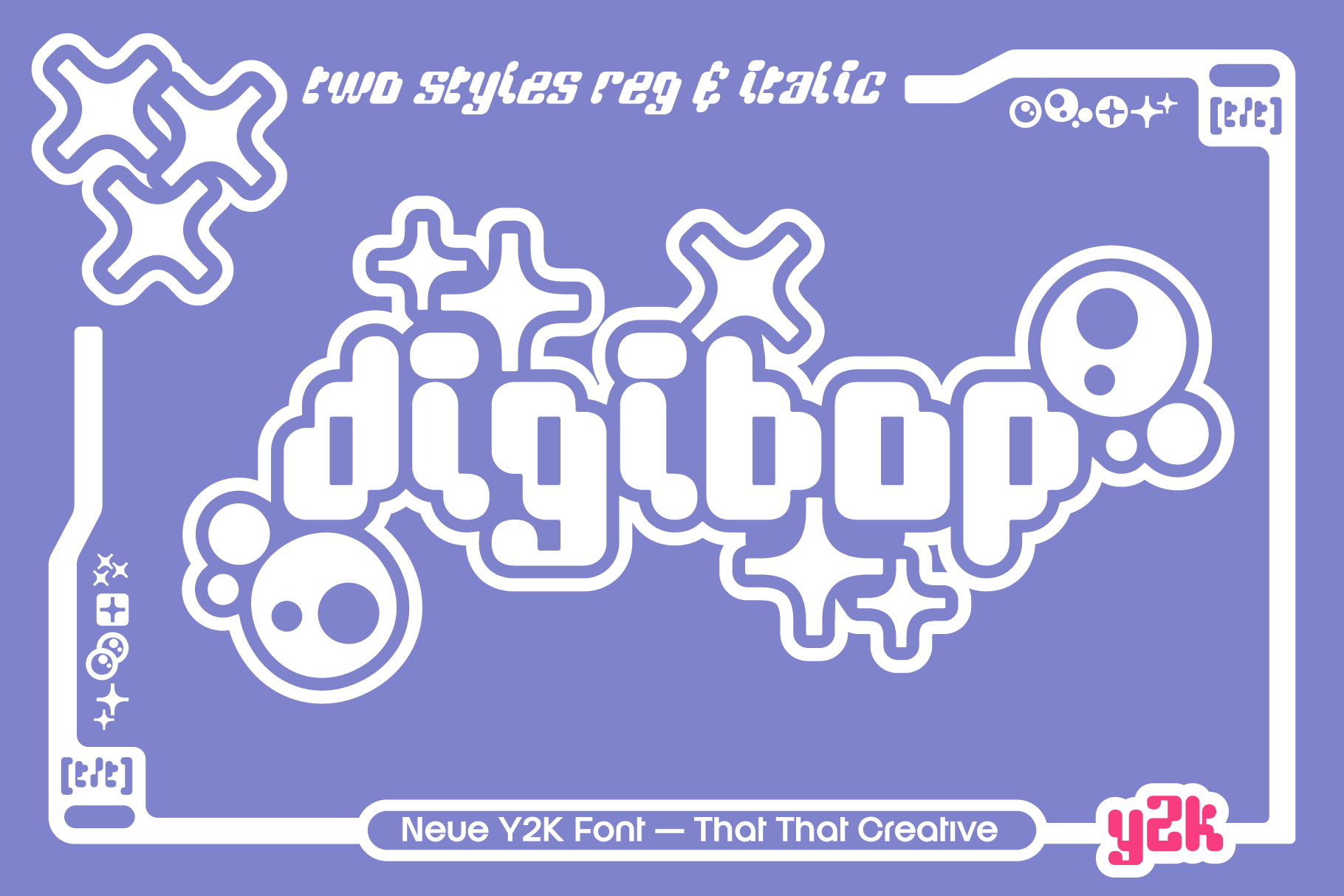
DigiBop Y2K is a real head turner. It is a modern take on a retro (is Y2K retro yet) digital era font. this font is perfect for branding, Instagram, print, posters, logos, magazines, headlines and more. It comes in regular and italic. This font hits on 90's and early 2000's nostalgia in a big way adding a playful bold fun take on the Y2K trend.
Font Includes
- Numbers (3 sets of numbers)
- Unique star and bubble glyphs